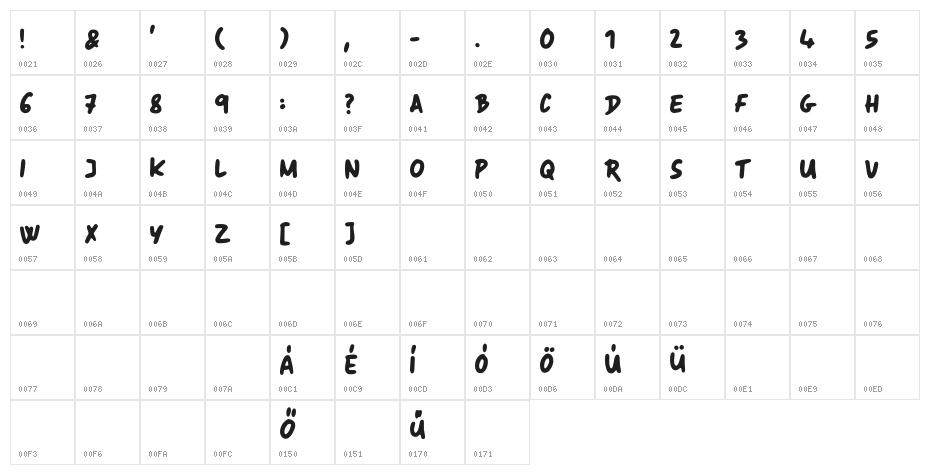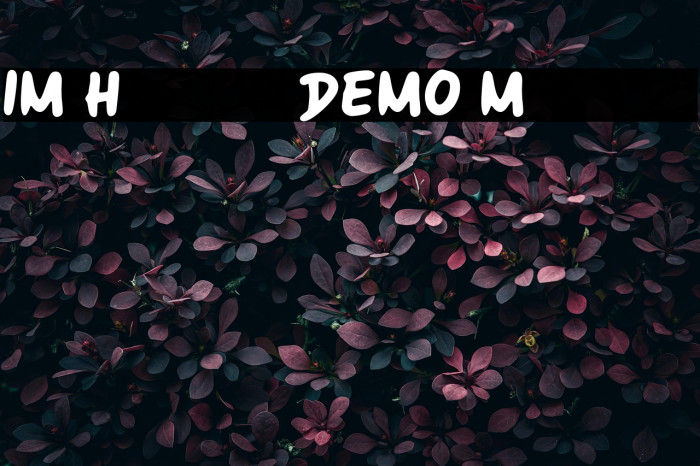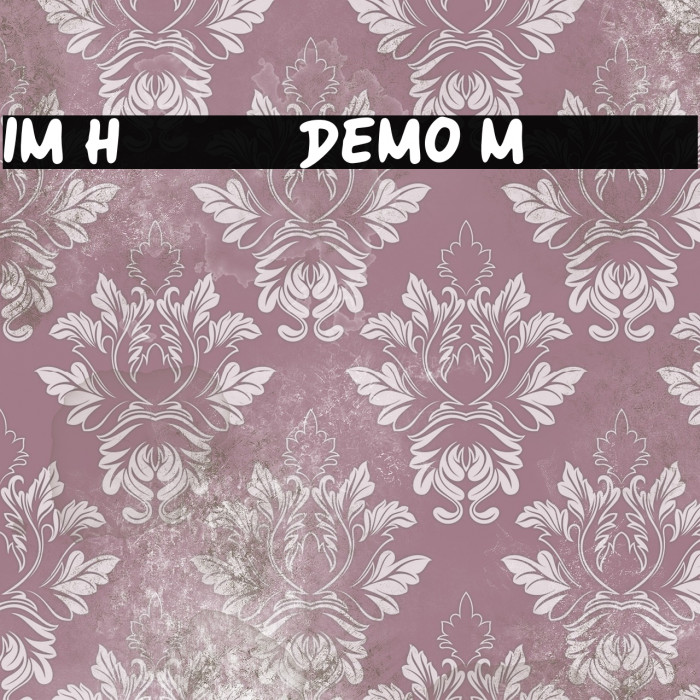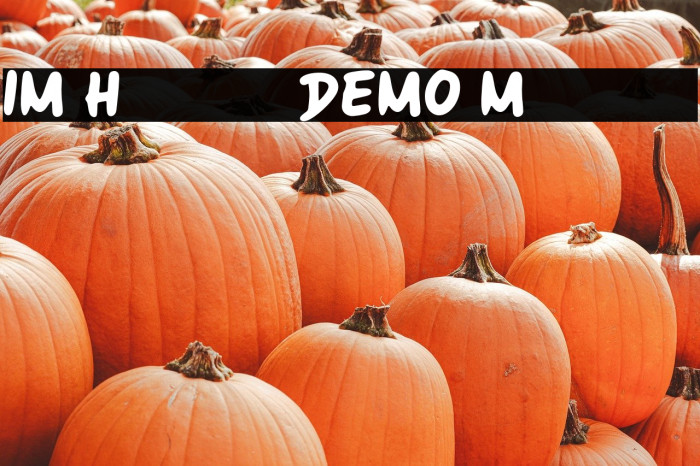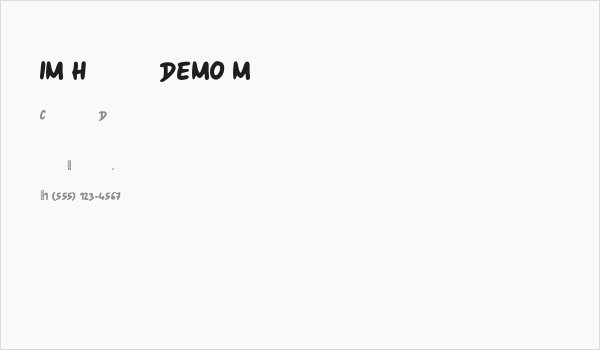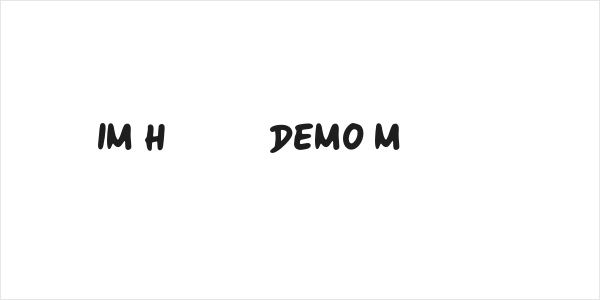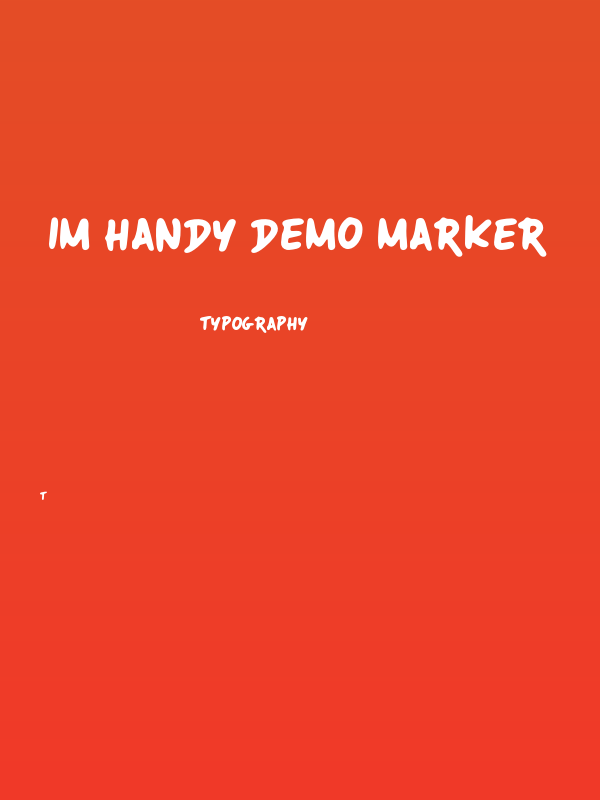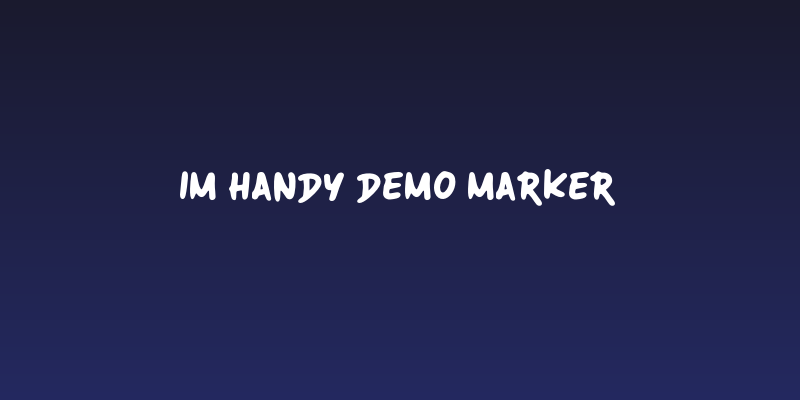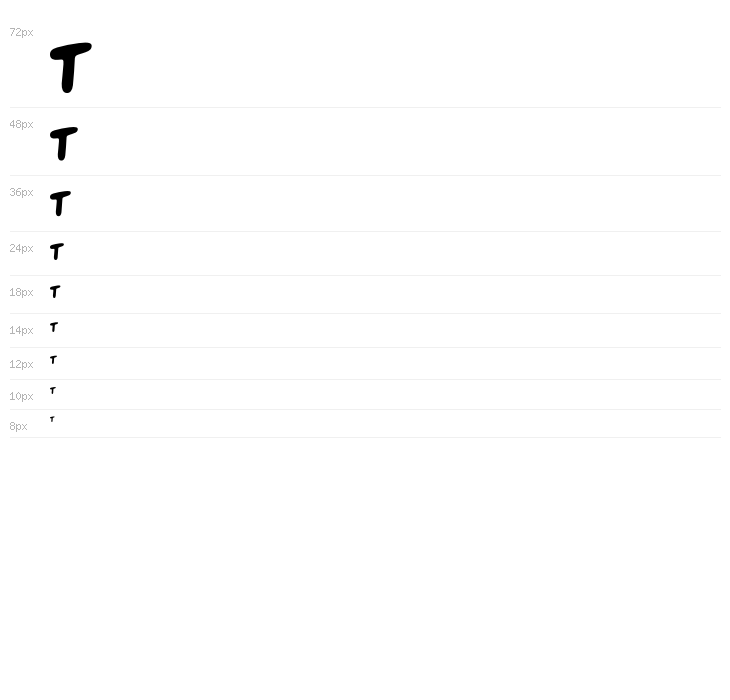
IM Handy DEMO Marker Font
IM Handy DEMO Marker Description
A playful, bold handwritten font with rounded edges and a marker-like appearance, featuring irregular strokes and a casual, friendly feel.
| Overall Style | Playful, Casual, Decorative |
| Use Case | Headlines, Posters, Logos, Informal text |
| Proposed Projects | Children's books, posters, greeting cards, informal branding, social media graphics. |